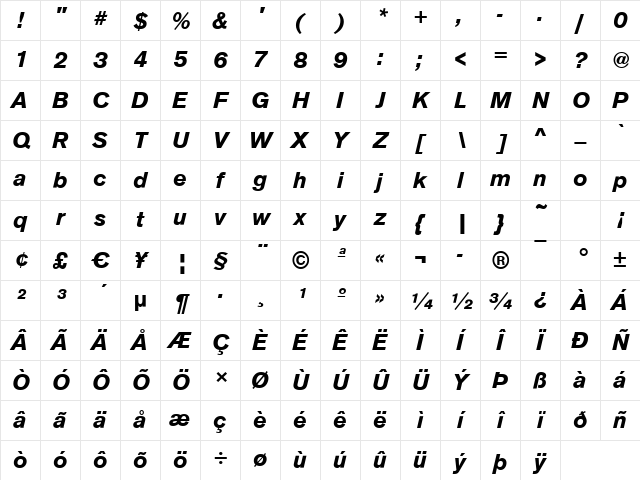
Ancona BoldItalic
Design Context for Ancona
Ancona is a composed and adaptable typeface that performs quietly and consistently across a wide range of design contexts. The slanted form adds forward momentum and visual energy. Its bold stroke weight gives it real presence on the page.
Pro Tip: Use Ancona for emphasis, pull quotes, and subheadings where its slanted energy can add rhythm to the layout.